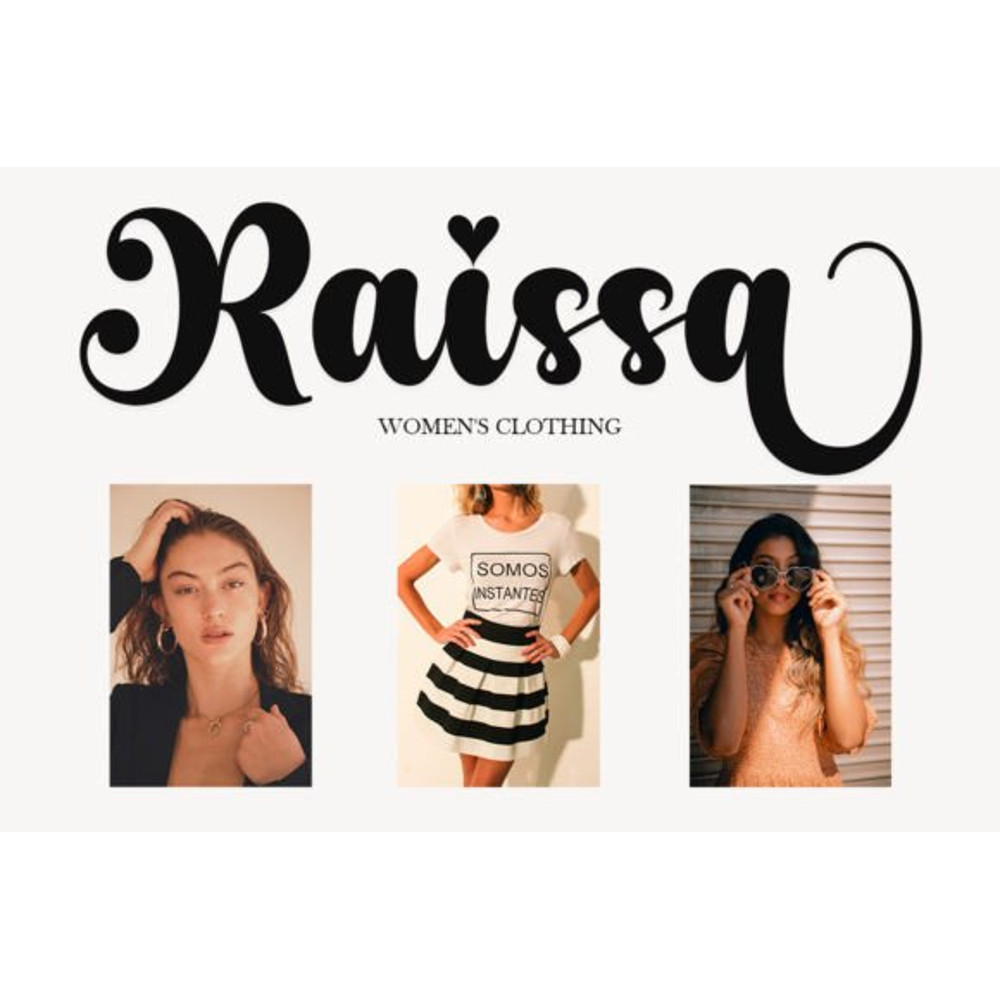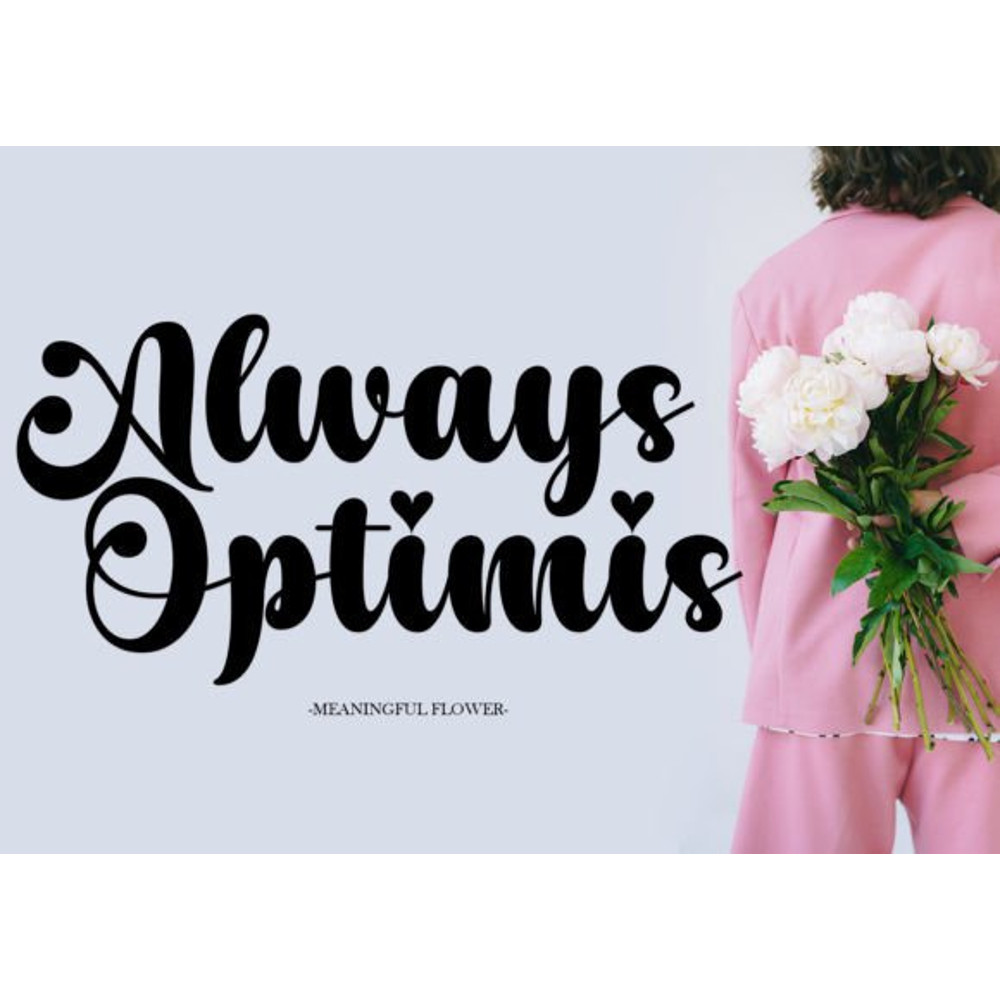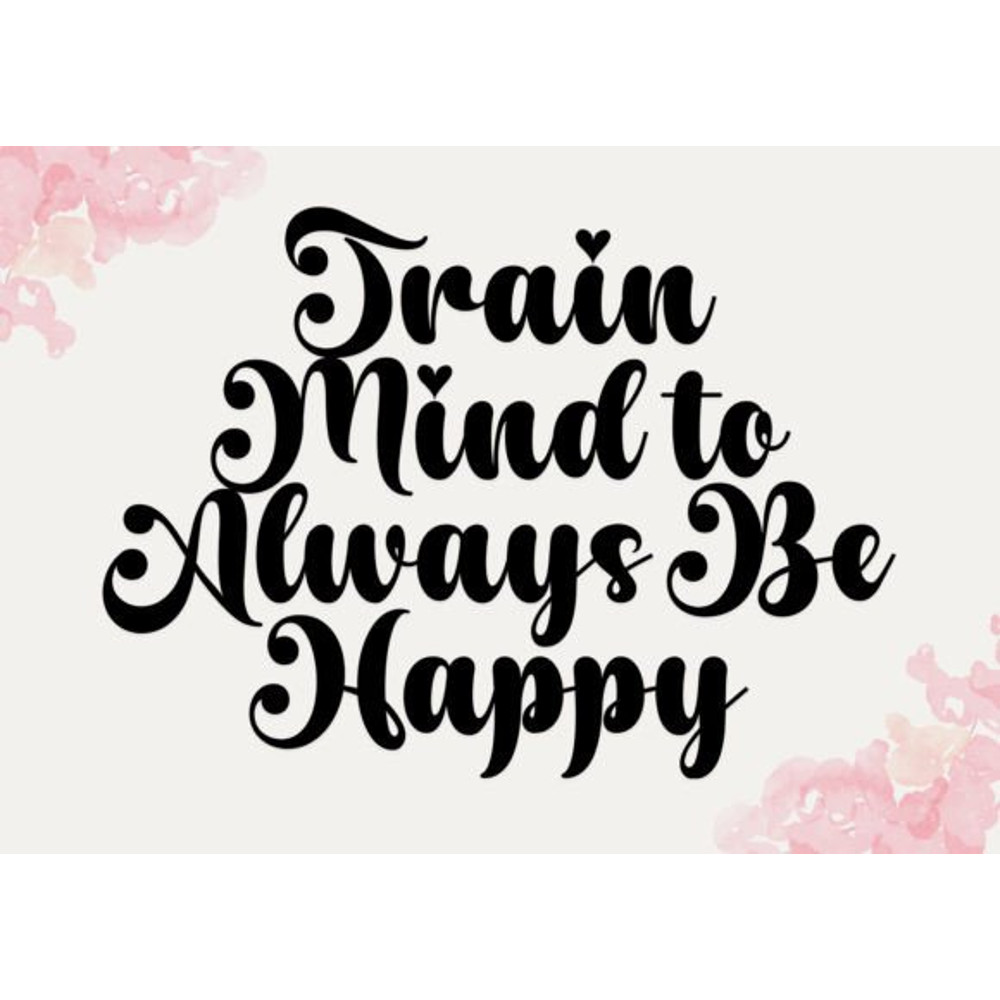
Simple Good is a sweet, all round, and flexible handwritten font. Warm, romantic, and jolly, this font will turn each of your project ideas into real works of art. This font is PUA encoded, which means you can access all of the glyphs and swashes with ease!